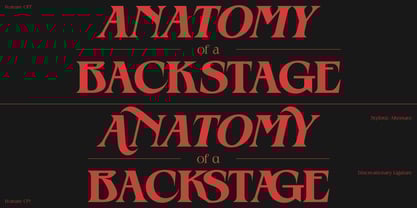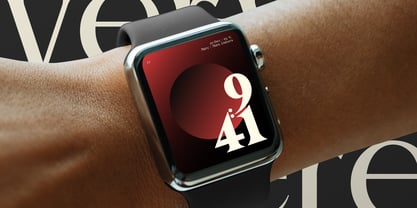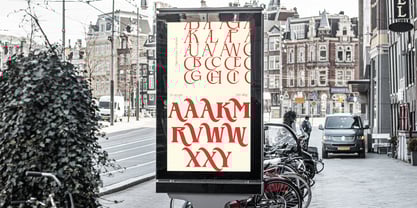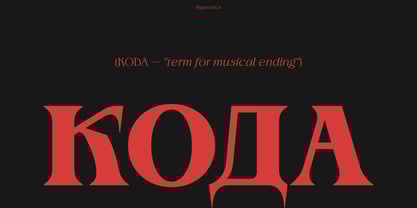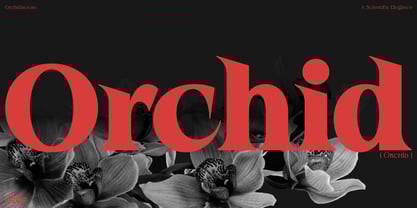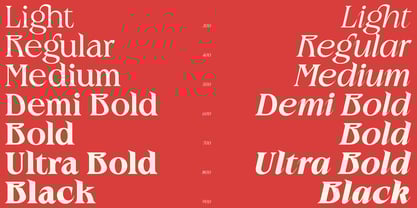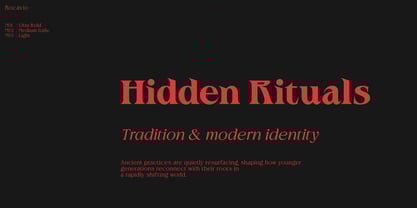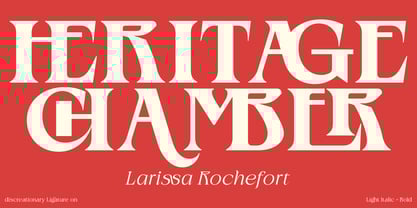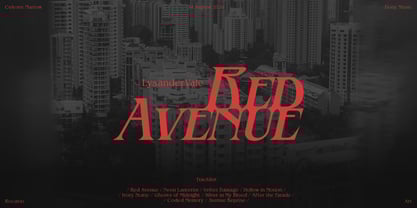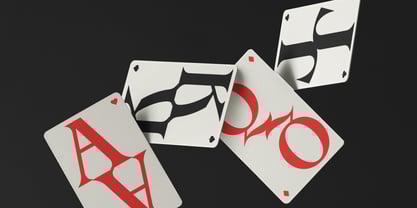
Rocavio
The Rocavio Font Family was designed by Anwar Patihan and published by Jehoo Creative. Rocavio contains 14 styles and family package options.
Rocavio — A Prestige Serif for Iconic Design Rocavio is a refined serif family that blends classical elegance with a subtle brutal edge. Its shapes carry architectural firmness and modern precision, giving the typeface a confident and contemporary presence. Designed for universal use, Rocavio includes 7 weights — Light, Regular, Medium, Demi Bold, Bold, Ultra Bold, and Black — each paired with carefully drawn true italics. The family offers a full range suitable for editorial design, branding, packaging, and premium visual identities. Rocavio features bespoke ligatures, sophisticated stylistic alternates, and a distinct shaping style that adds quiet luxury to both text and display settings. With support for Cyrillic and 980+ glyphs, it delivers extensive language coverage and professional versatility. Clean, sculpted, and unmistakably premium — Rocavio brings a strong typographic voice to any project.